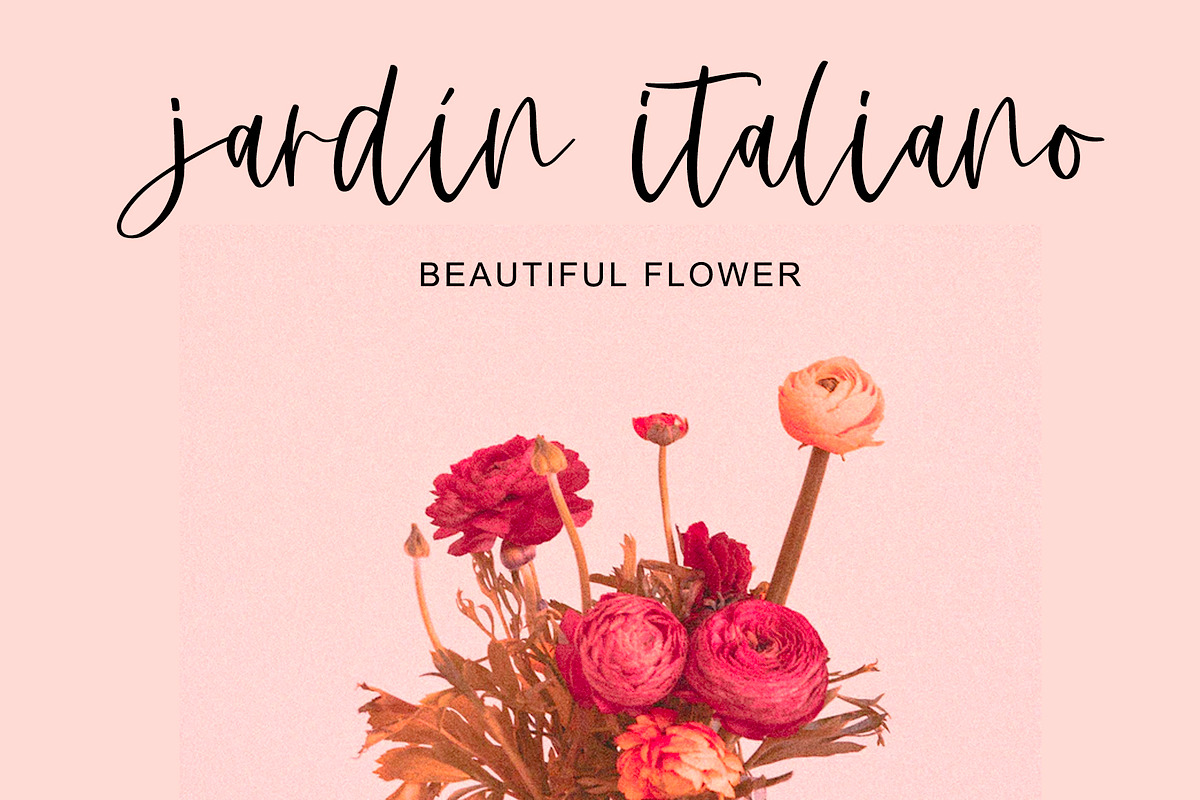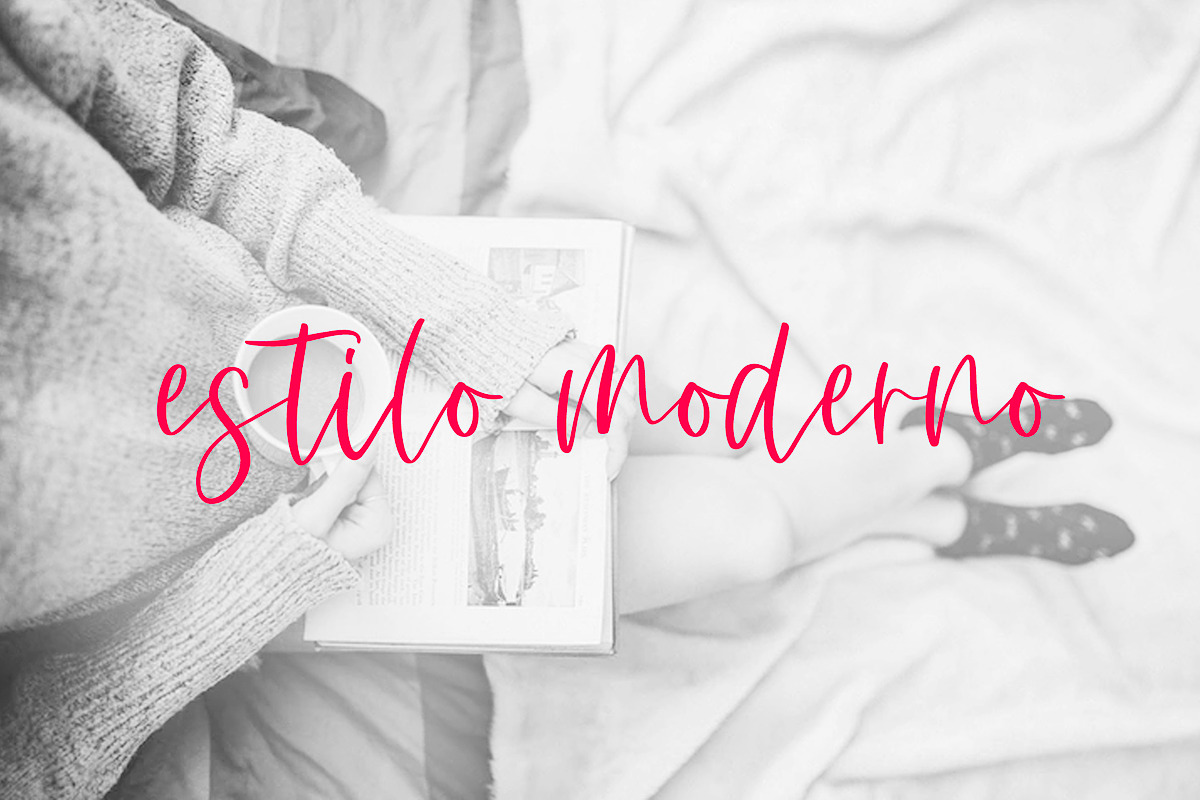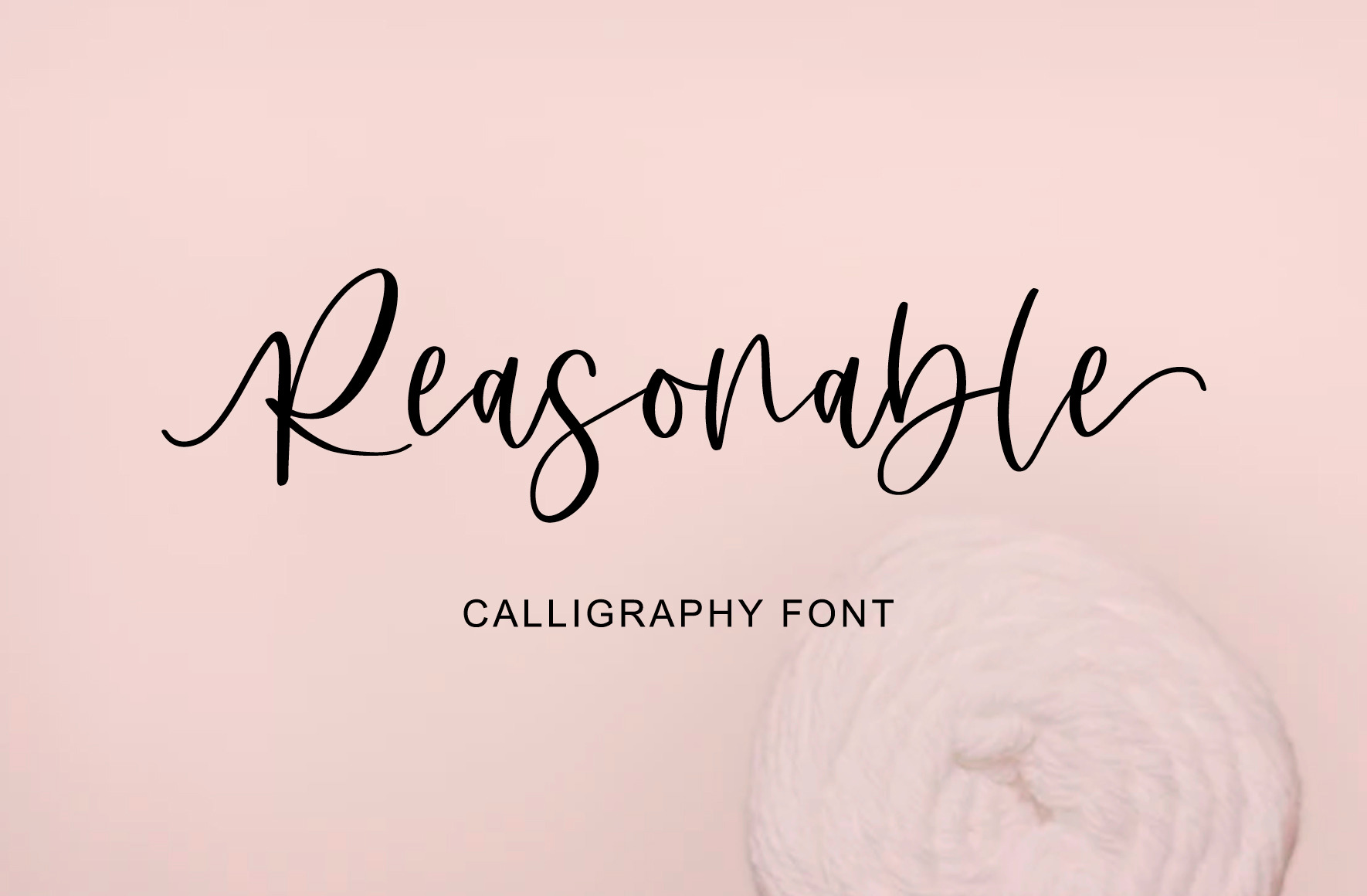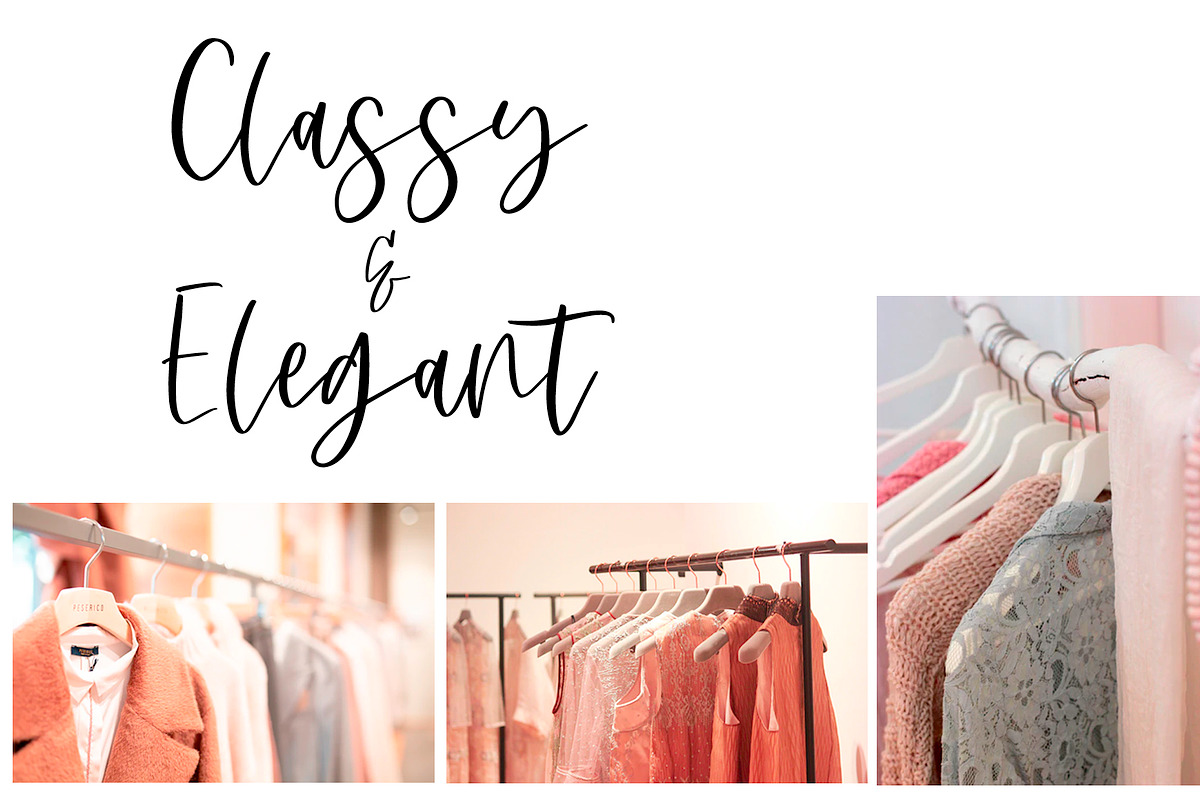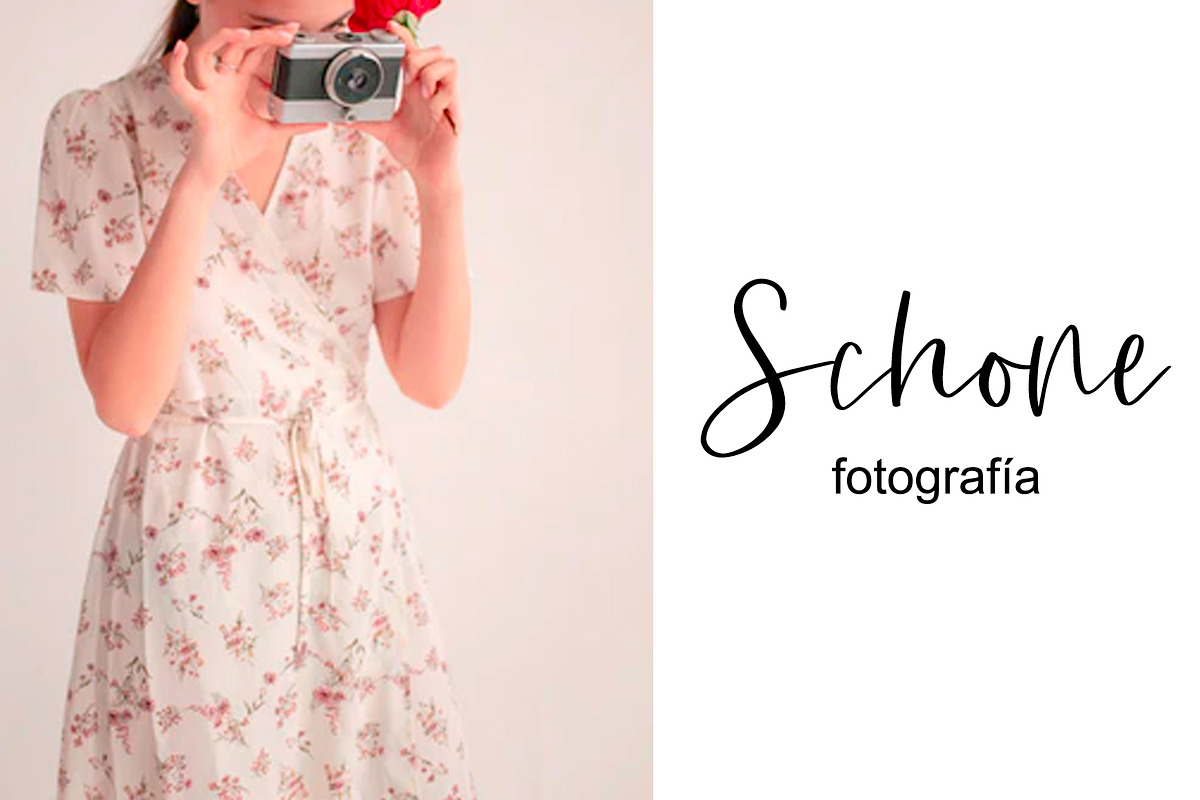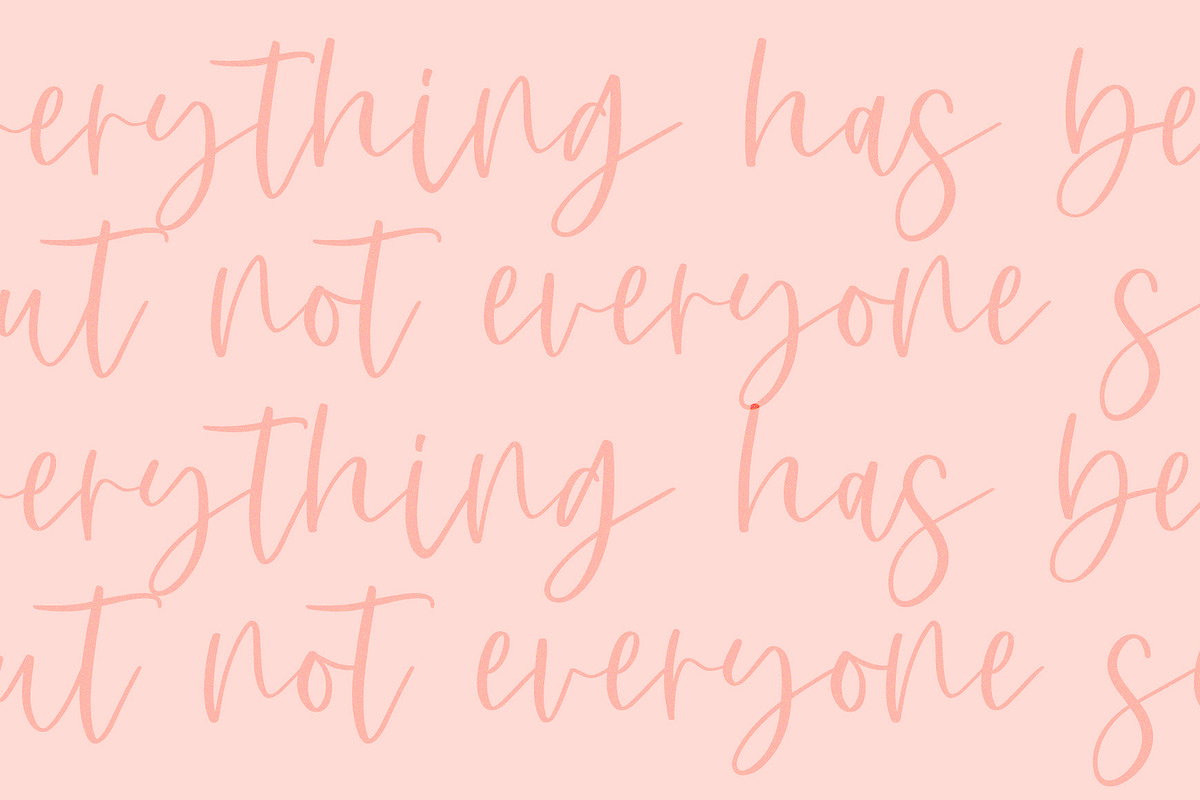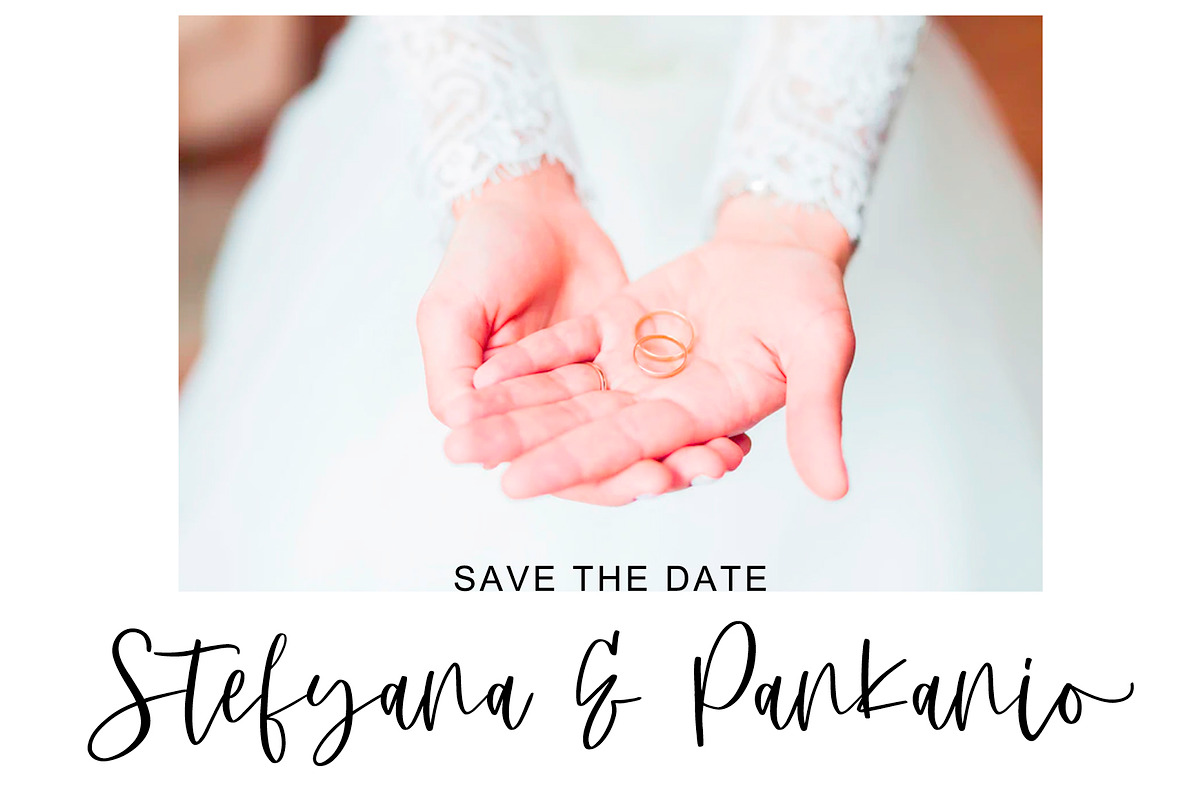
Reasonable | Handwriting Font
Reasonable is a slick and subtle script font that exudes beauty and elegance. It has a thin modern calligraphy look making it perfect for branding and digital designs. Its stylish alternatives and binders make this font perfect for logos, social media, websites, blogs, instagram, business cards, branding, and more!